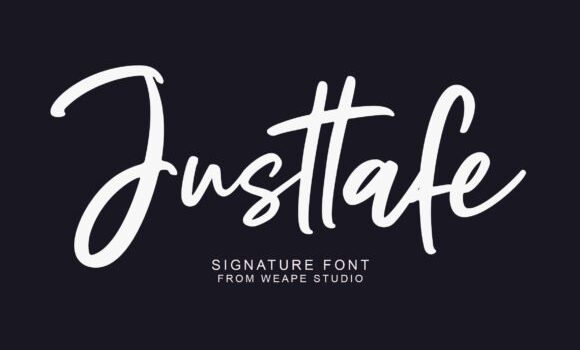
justtafe
Justtafe Font – Free Download Introduction to Justtafe Font Justtafe is inspired by classic typography and brings its own unique style to any design project. 📸 Preview Gallery 6 images 📌 Product Name Justtafe Font 👤 Author Weape Design 📂